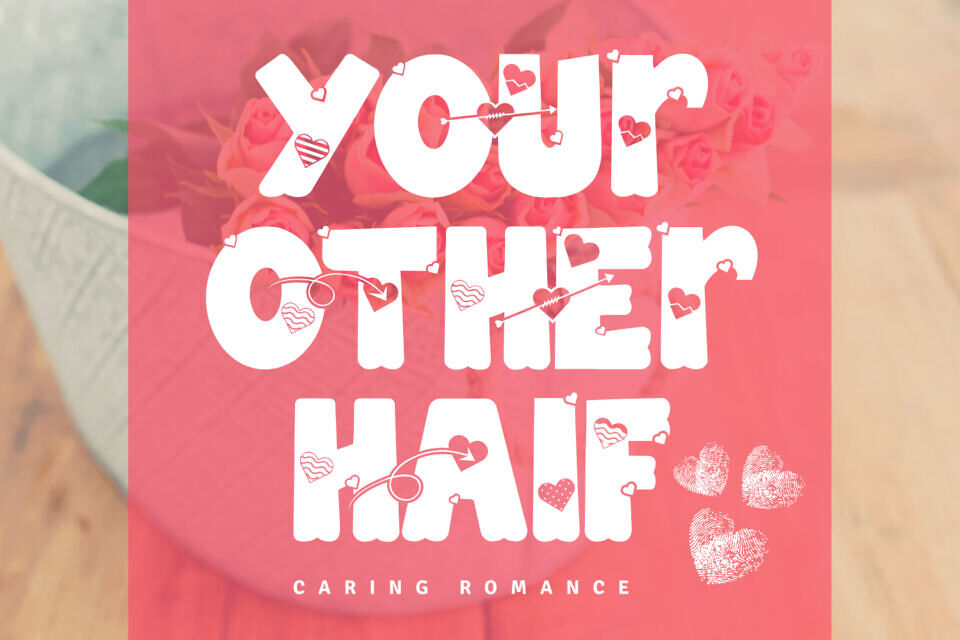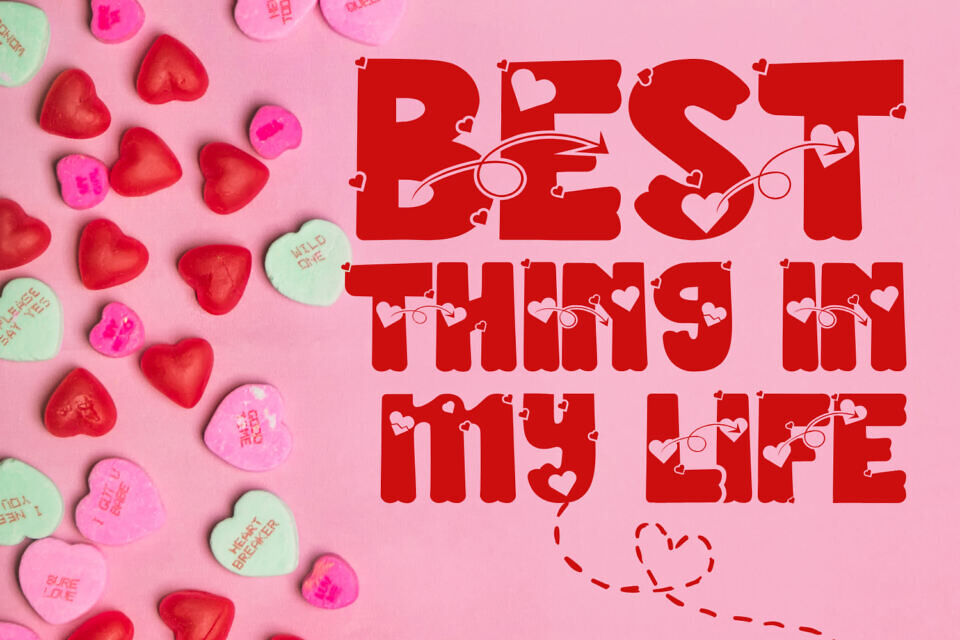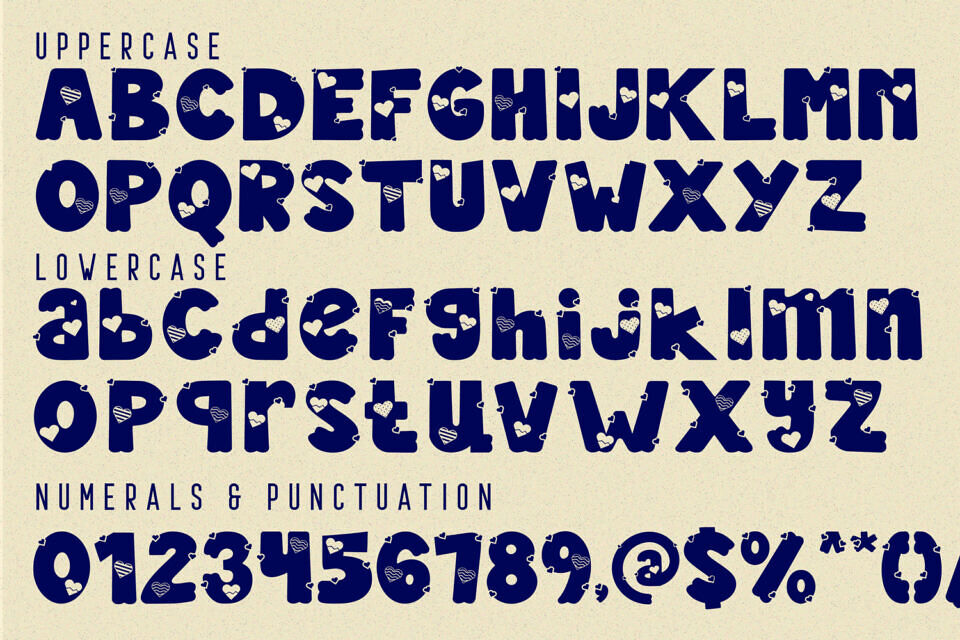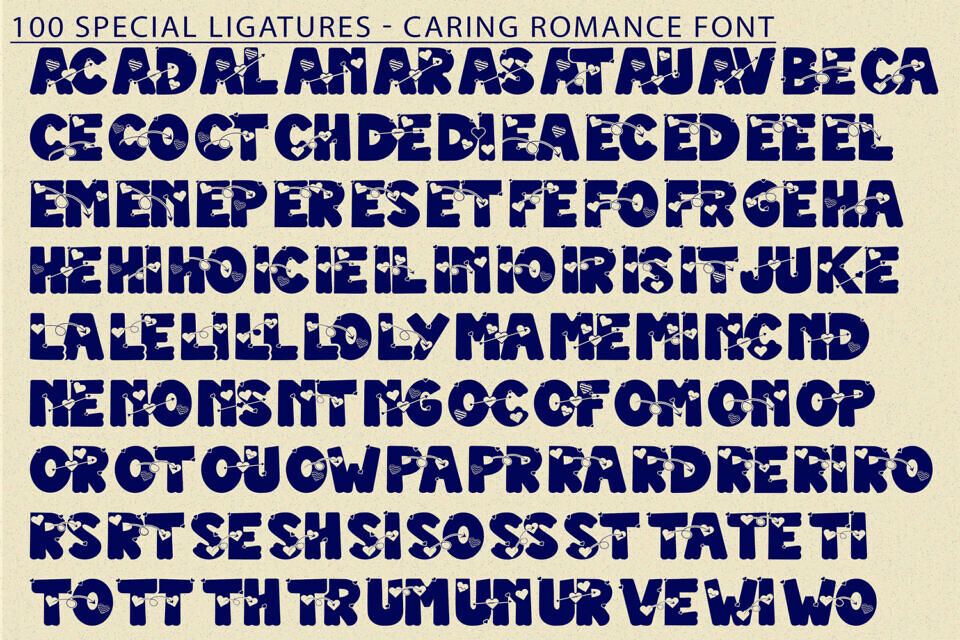
Caring Romance is a lovely heartwarming and playful display font designed to spread joy and affection. With its bubbly letterforms, whimsical arrows, and heart-filled shapes, this typeface brings a delightful charm to every design.
Each character is packed with lovely details — from pierced hearts to wavy love lines — making it the perfect choice for Valentine’s cards, wedding stationery, children’s books, stickers, merchandise, and more.